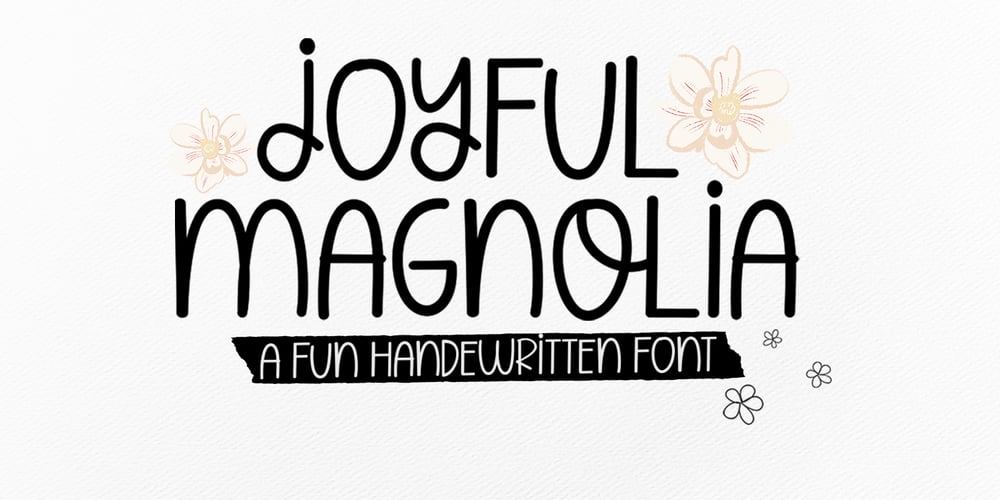
Joyful Magnolia
Joyful Magnolia font
Joyful Magnolia Font Family was designed by Naufal Paramata and published by Youngtype. Joyful Magnolia contains 1 styles and family package options. Joyful Magnolia handwritten. Contains a complete set of lowercase, uppercase, alternative, ligatures, punctuation marks, numbers and multilingual support.This font is ideal for use in watercolor designs or monoline styles, such as blog headers, posters, wedding elements, t-shirts, apparel, book covers, business cards, greeting cards, branding, merchandise, invitations and handmade quotes and more. again.Thank You 🙂